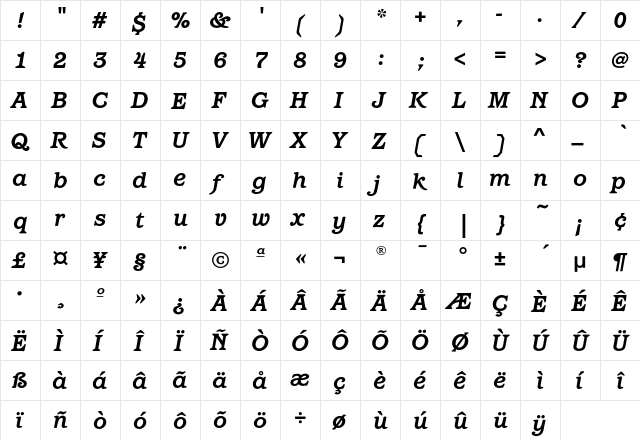
BarcelonaEF-BoldItalic Regular Font Preview
Design Context for BarcelonaEF-BoldItalic Typeface
BarcelonaEF-BoldItalic takes a measured approach to typography — its balanced proportions and neutral character make it a reliable workhorse for both digital and print work. Its italic angle brings a sense of urgency and motion to the letterforms. The heavy weight commands attention and anchors typographic hierarchies.
Pro Tip: Try BarcelonaEF-BoldItalic for annotation and caption copy alongside an upright companion — the contrast in angle creates a dynamic but ordered typographic system.